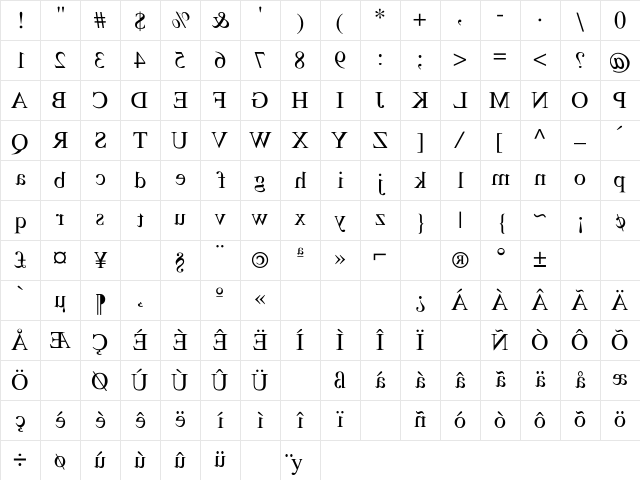
RSTimesMirror Regular
Design Context for RSTimesMirror
RSTimesMirror is a composed and adaptable typeface that performs quietly and consistently across a wide range of design contexts.